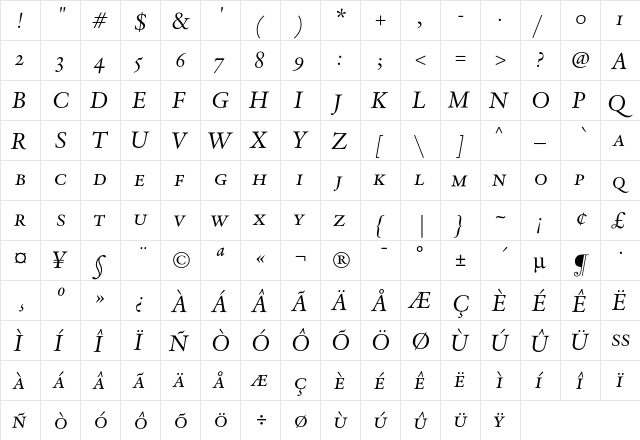
DTL VandenKeere D Caps Italic
Design Context for DTL VandenKeere Typeface
DTL VandenKeere is a composed and adaptable typeface that performs quietly and consistently across a wide range of design contexts. The dynamic lean of this cut emphasises speed and emphasis in any layout.
Pro Tip: Use DTL VandenKeere for emphasis, pull quotes, and subheadings where its slanted energy can add rhythm to the layout.